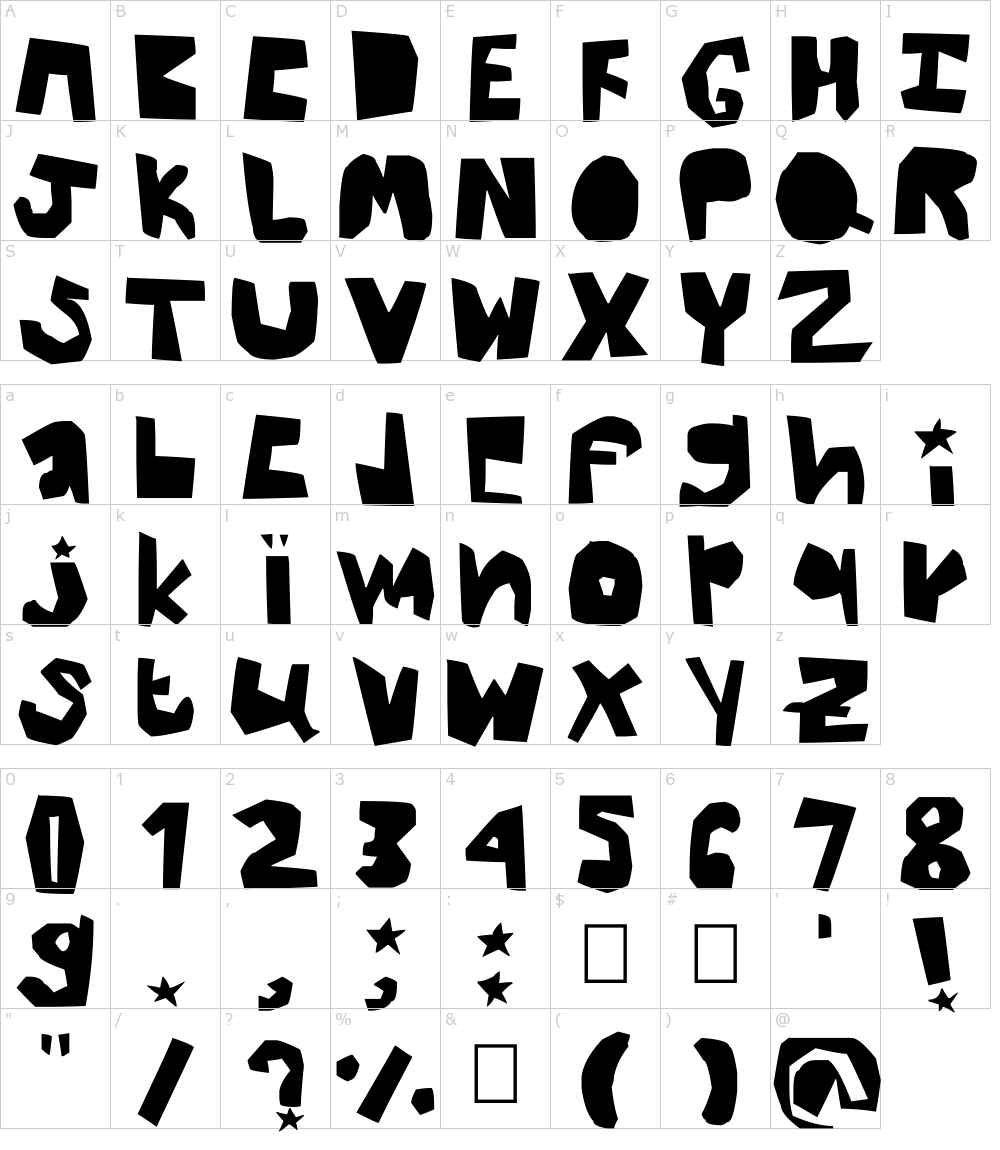
List Of Thick Fonts Free References
List Of Thick Fonts Free References. A range of hand lettering styles from big, modern letters to stunning handwritten cursive. Thicker fonts are advantageous for a few reasons.
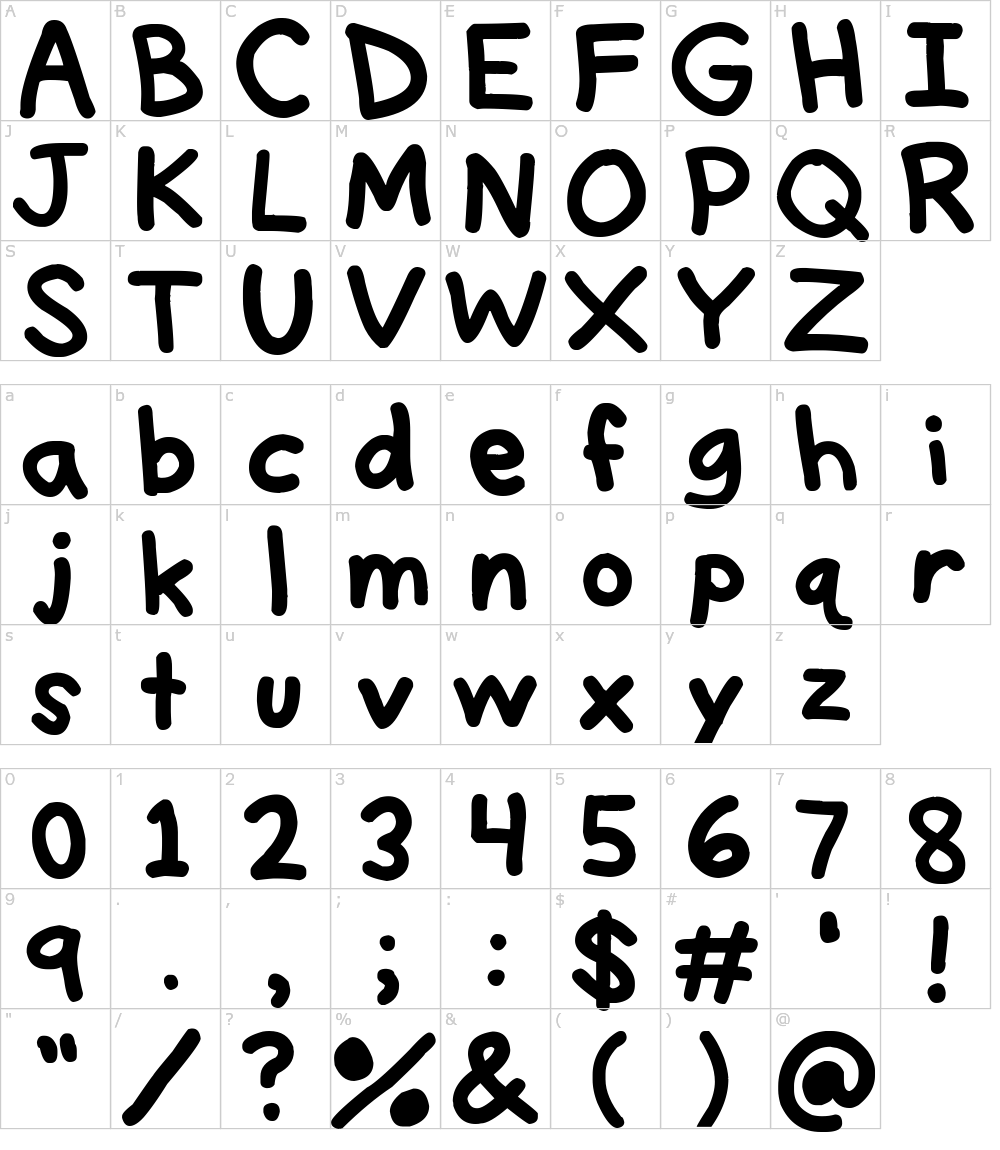
9) douglas collections (otf & ttf) now this font is an absolute beast, and it comes with so many bonuses that it makes it high on my list of the best thick fonts to use with. Some customers experienced issues with web fonts on monday. It is a thick font designed in 2019.
30+ best thick & heavy fonts (free & premium) boldenvan spot the lied font colombo sans font crushed font cheddar gothic font family mutiara vintage blitzen deer. Thick custom preview size thick by sarah robbaniyyah in fancy > cartoon 24,718 downloads (2 yesterday) free for personal use download donate to author thick. Thick fonts the best free thick font generator for your tattoos, designs and social media.
Go Big Or Go Home With These Free Thick, Bold Fonts For Projects, Logos, Blogs, Graphic Design And More.
Design many food designs, animations, flyers, and restaurant brand logos with more than 100 characters with this font. Thick font is a font / typeface offered for free. The fonts presented on this website are their authors' property, and are either freeware, shareware, demo versions or public domain.
Varela Is A Modern Bold Font That Blends Styles Of Many Great Typefaces.
Best thick fonts mosk free font. We have 72 free script, bold fonts to offer for direct downloading · 1001 fonts is your favorite site for free fonts since 2001. Dafont has created clean, bold font duos for your designs to look stylish and modern.
It Is A Thick Font Designed In 2019.
Collection of fonts for thick font. A range of hand lettering styles from big, modern letters to stunning handwritten cursive. 9) douglas collections (otf & ttf) now this font is an absolute beast, and it comes with so many bonuses that it makes it high on my list of the best thick fonts to use with.
Thicker fonts are advantageous for a few reasons. Some customers experienced issues with web fonts on monday. It’s free for personal use.